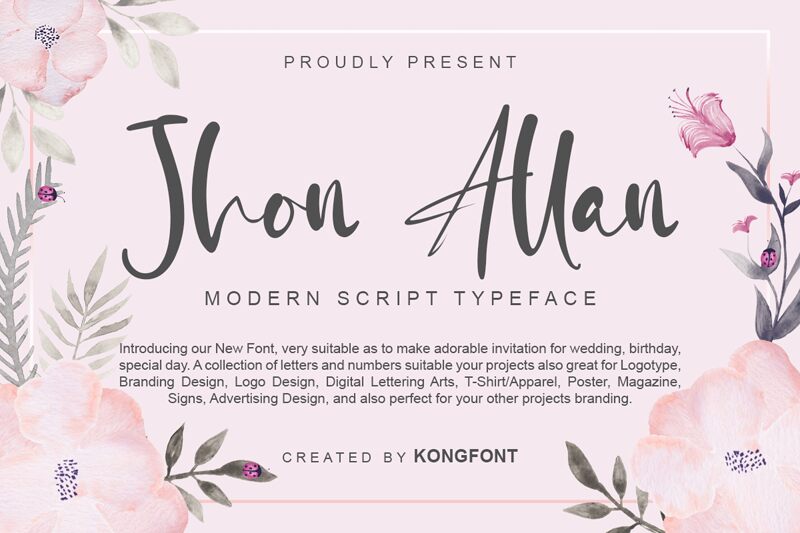
Jhon Allan
Jhon Allan, the latest creation from Kong Font, is a beautiful modern handwritten font that exudes elegance and sophistication. Its semi-light weight gives it a delicate touch that is perfect for projects that require a refined look, such as wedding invitations or high-end fashion branding. This font's unique style also makes it suitable for more creative projects like social media graphics and branding for luxury products. Jhon Allan is sure to elevate any design with its effortless charm and sophisticated appeal. Get ready to impress your audience with this versatile and stunning typeface!